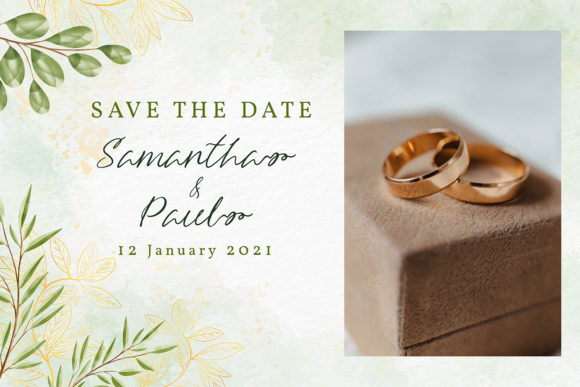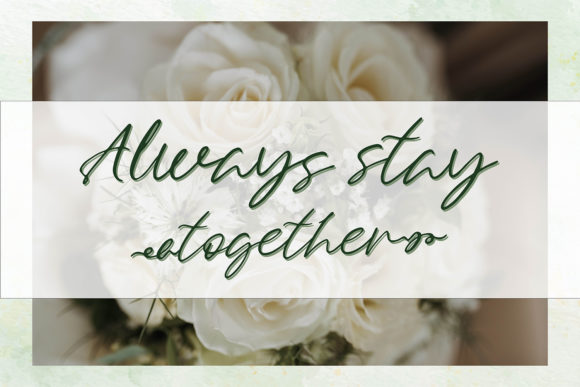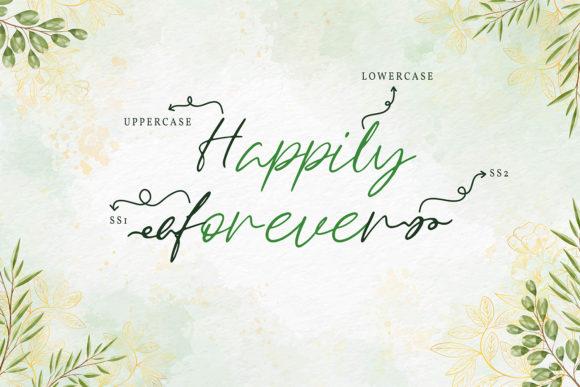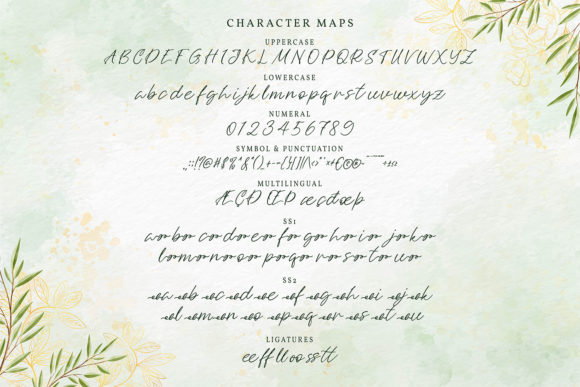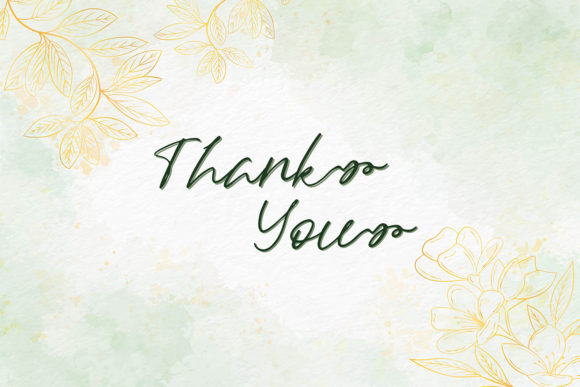
Elyssum Font
About Elyssum Font
Elyssum is a stylish and delicate font that exudes elegance and sophistication. With its clean, thin, and smooth vibe, this font adds a touch of refinement to any design project it graces. From logos to invitations, Elyssum is a versatile font that is sure to impress.
The beauty of Elyssum lies in its clean and sleek letterforms. The thin strokes and smooth curves create a sense of delicacy and sophistication, making it a perfect choice for designs that require a modern and stylish look. Whether you’re designing a logo, a branding project, or a wedding invitation, Elyssum adds a touch of elegance and class.
The font’s versatility allows it to be used in a wide range of design projects. Its clean and minimalistic aesthetic makes it suitable for various applications, including website headers, social media posts, packaging, and more. Elyssum’s timeless appeal ensures that it will remain relevant and visually appealing across different design contexts.
One notable feature of Elyssum is its PUA encoding. PUA encoding allows for easy access to all the beautiful glyphs and swashes that come with the font. This means you have a wealth of design elements and decorative options at your fingertips, enabling you to customize and embellish your designs with ease.
Elyssum’s legibility is another aspect that makes it a standout font. Despite its delicate appearance, the font remains highly readable, ensuring that your message is effectively communicated to your audience. Whether it’s in print or digital media, Elyssum maintains its clarity, making it a practical choice for various design applications.
Embrace the stylish and delicate charm of Elyssum and watch it elevate your designs to new heights. Whether you’re creating a logo, a website, or any other design project, this font’s clean and refined aesthetic will add a touch of elegance and sophistication. With its PUA encoding, you have the freedom to explore the beautiful glyphs and swashes, enabling you to create truly unique and captivating designs.